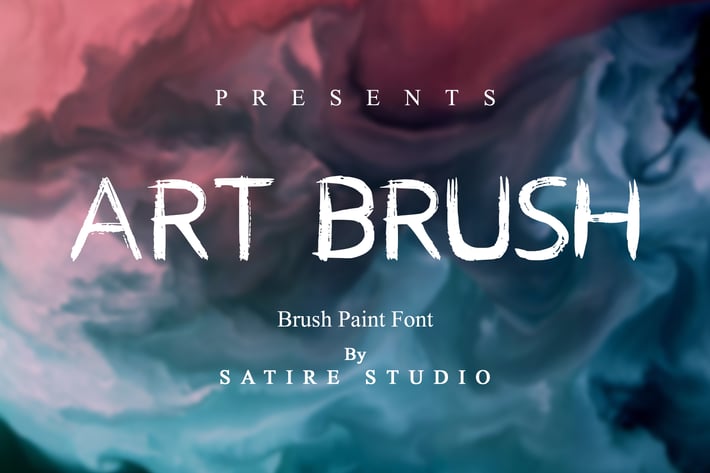
Art Brush - Brush Paint Font
Art Brush | Scary Font, So beautiful on invitation like greeting cards, branding materials, business cards, quotes, posters, and more!